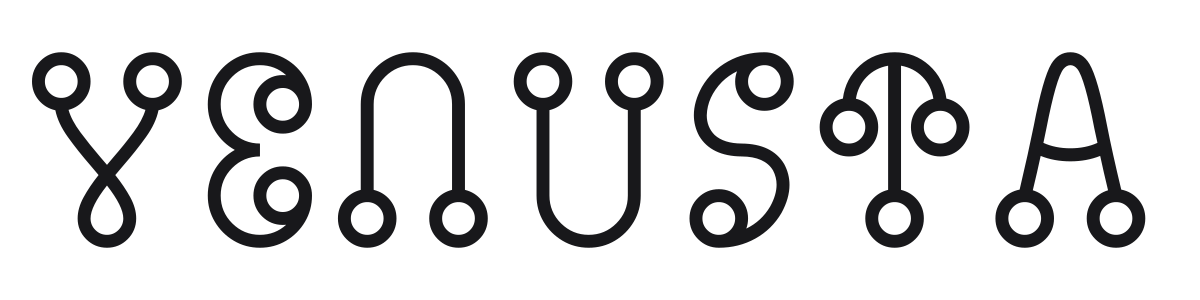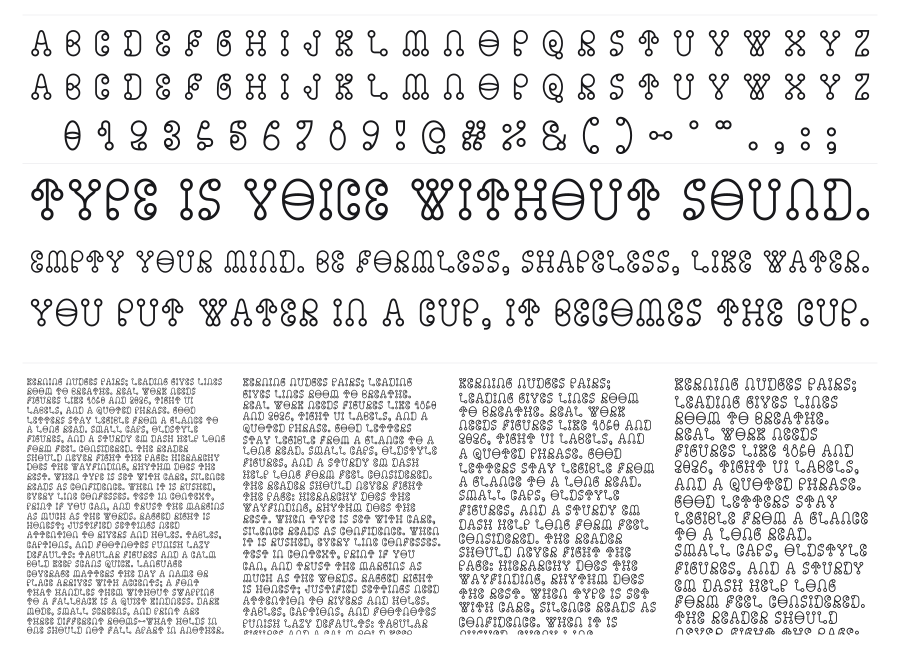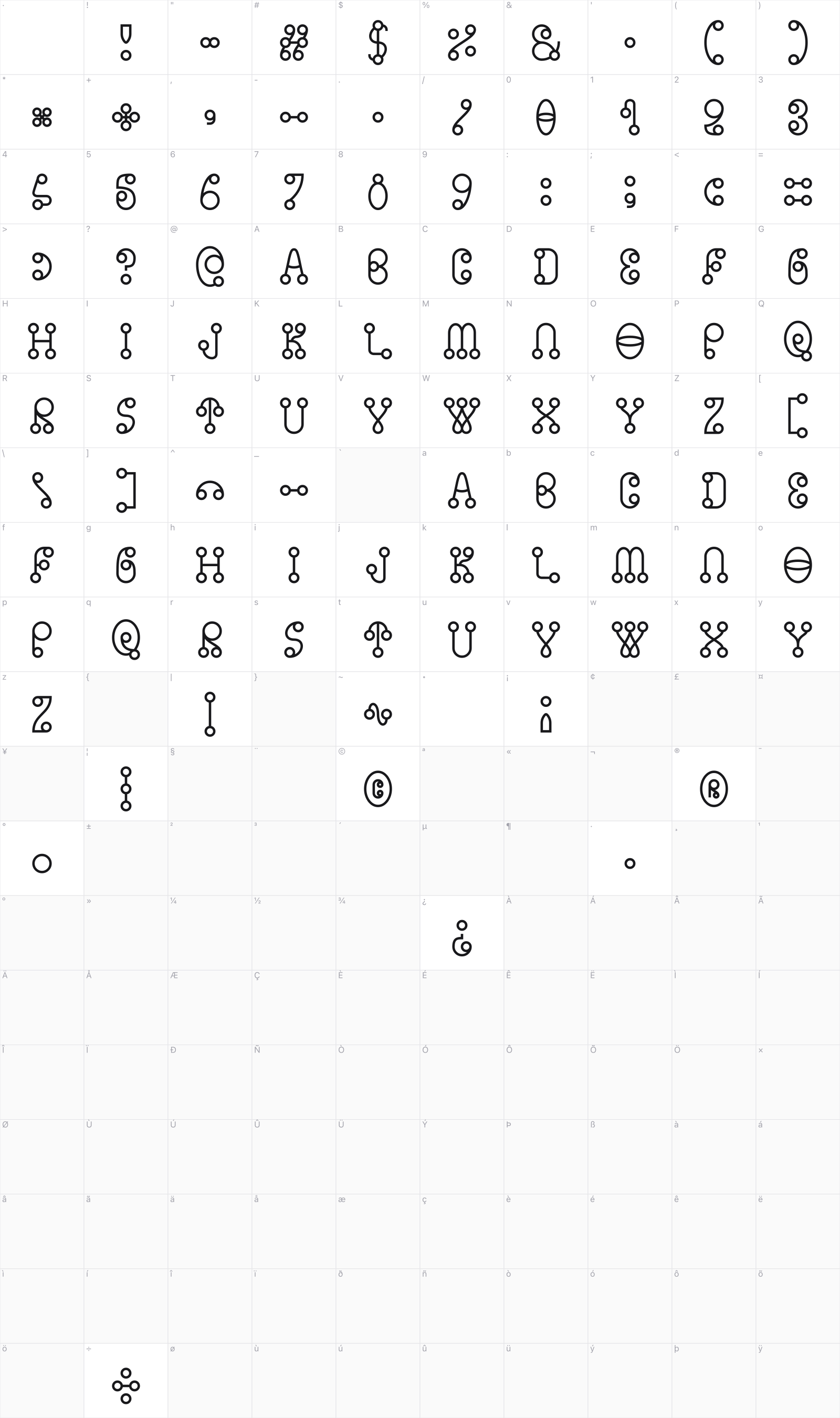
Venusta
Venusta is a novelty display face built from circles, curves, and orbiting dot ornaments that give every character a molecular or atomic look. The monoweight strokes and ball terminals create a uniform, bouncy rhythm with a distinctly retro 1960s pop-art energy. It works at large sizes where the decorative details can breathe.